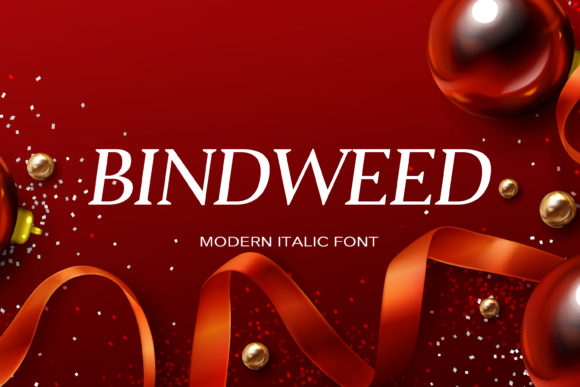
The Designer’s Delight: Bindweed Font
I’ll never forget the time I was working on a branding project for a trendy new cafe. My client wanted a font that was both modern and charming, but I was struggling to find the perfect fit. That’s when I stumbled upon Bindweed – a strong and charming display font that instantly caught my eye. In this article, I’ll share my experience with Bindweed, its unique features, and how to make the most of it in your designs.
A First Impression: What I Love About Bindweed
Bindweed has a certain je ne sais quoi that sets it apart from other display fonts. Here are a few things that I love about it:
• ✨ Unique style: Bindweed has a distinctive, modern feel that’s perfect for making a statement.
• ✅ Strong and charming: This font exudes confidence and personality, making it ideal for headlines and titles.
• 🔥 Versatile: Bindweed can be used for a wide range of design projects, from branding and advertising to packaging and signage.
While Bindweed is an excellent font, it’s not without its limitations. Here are a few things to keep in mind:
• 🤔 Limited legibility: As with many display fonts, Bindweed can be challenging to read at smaller sizes. Be sure to use it at larger sizes or for short blocks of text.
• ⚠️ Limited suitability for body text: Bindweed is best used for headlines and titles. For body text, you may want to choose a more traditional font.
The Story Behind Bindweed
Bindweed was designed by a team of typographers who wanted to create a font that was both modern and charming. Inspired by the natural world, they crafted a font that’s perfect for making a statement. Whether you’re designing a logo, brochure, or website, Bindweed is sure to turn heads.
What is Bindweed font? Bindweed is a strong and charming display font with a unique style.
Is Bindweed suitable for body text? No, Bindweed is best used for headlines and titles. For body text, you may want to choose a more traditional font.
Does Bindweed support OpenType features? Yes, Bindweed supports OpenType features, including glyphs and stylistic alternates.